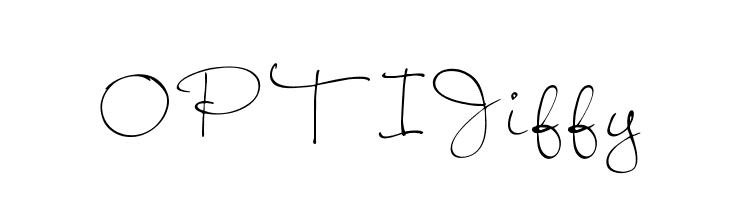
A classic serif font with a modern twist, offering elegance and versatility.
An artistic serif font with sharp, angular serifs and a modern calligraphic influence.
A classic serif font with medium weight and pronounced serifs, offering a blend of tradition and modernity.
A classic serif font with elegant, flowing lines and refined details.
A bold serif font with high contrast and classic elegance.
A playful and flowing script font with elegant, whimsical curves.
A gothic-inspired font with sharp, angular lines and artistic flair.
A classic serif font with medium weight and moderate contrast, offering elegance and readability.
A bold serif font with strong strokes and modern elegance.